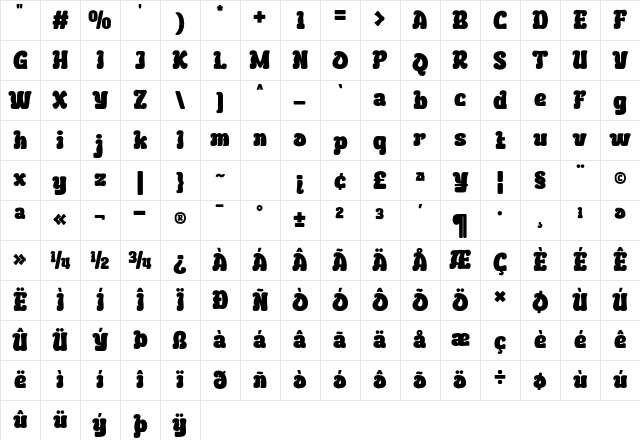
BEKURI Trial Regular Free Font
BEKURI Trial Regular
Foundry: twinletter
Designer: Ojak
Complete BEKURI Trial Regular glyph index. Displaying only characters natively supported by BEKURI Trial Regular font.
Design Context for BEKURI Trial
BEKURI Trial is a composed and adaptable typeface that performs quietly and consistently across a wide range of design contexts.
Pro Tip: Use BEKURI Trial in both headline and body roles to test its range before committing to a single application.